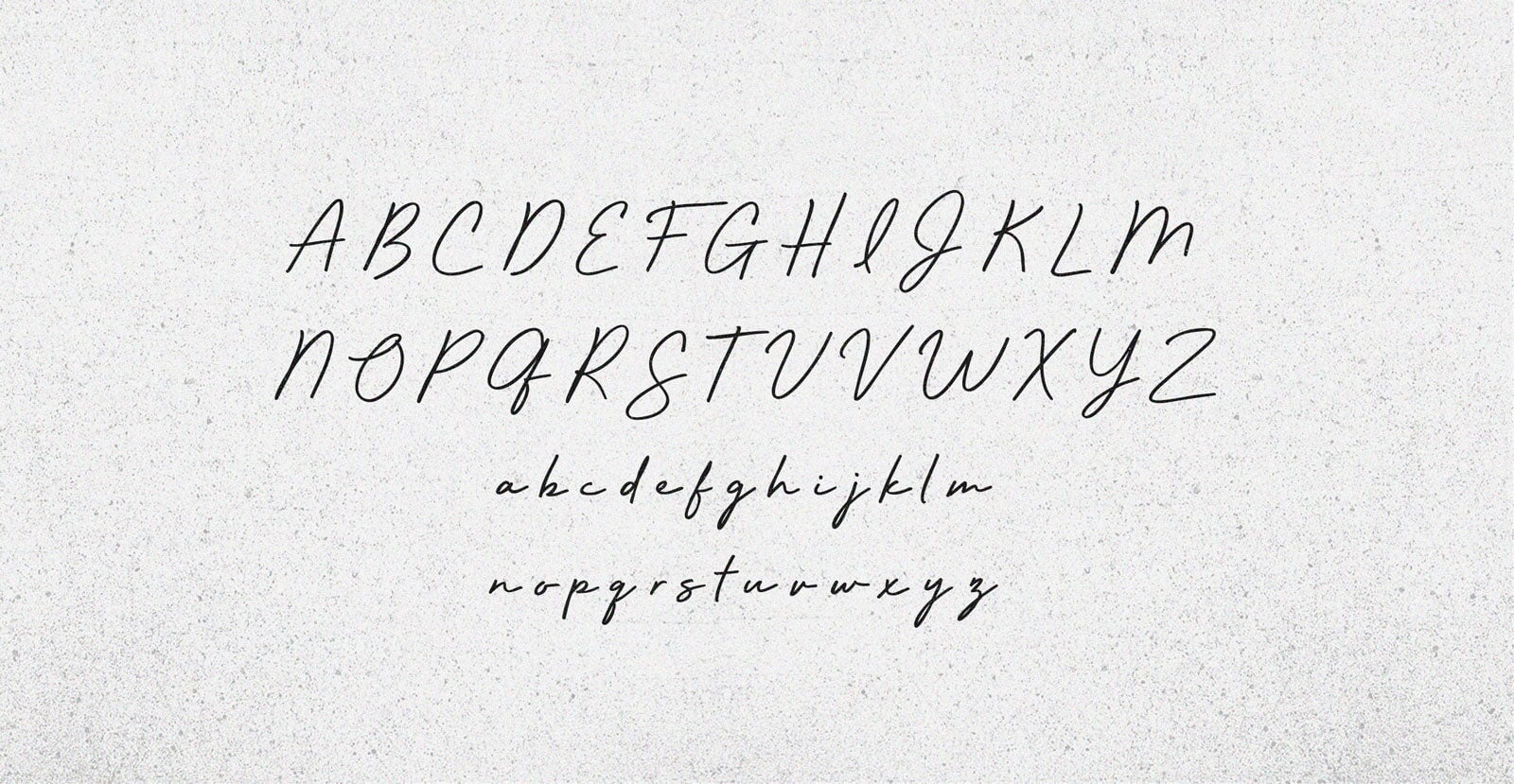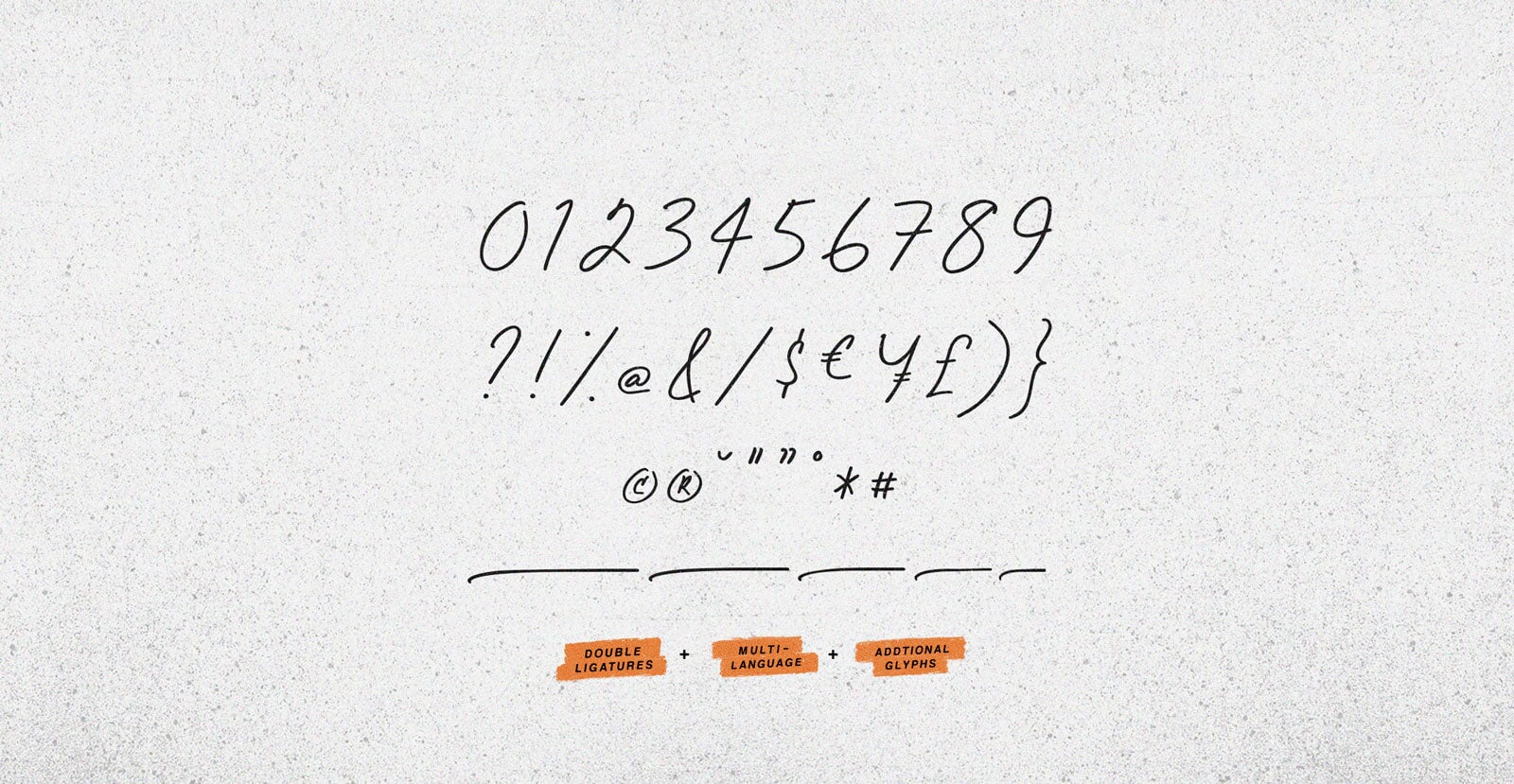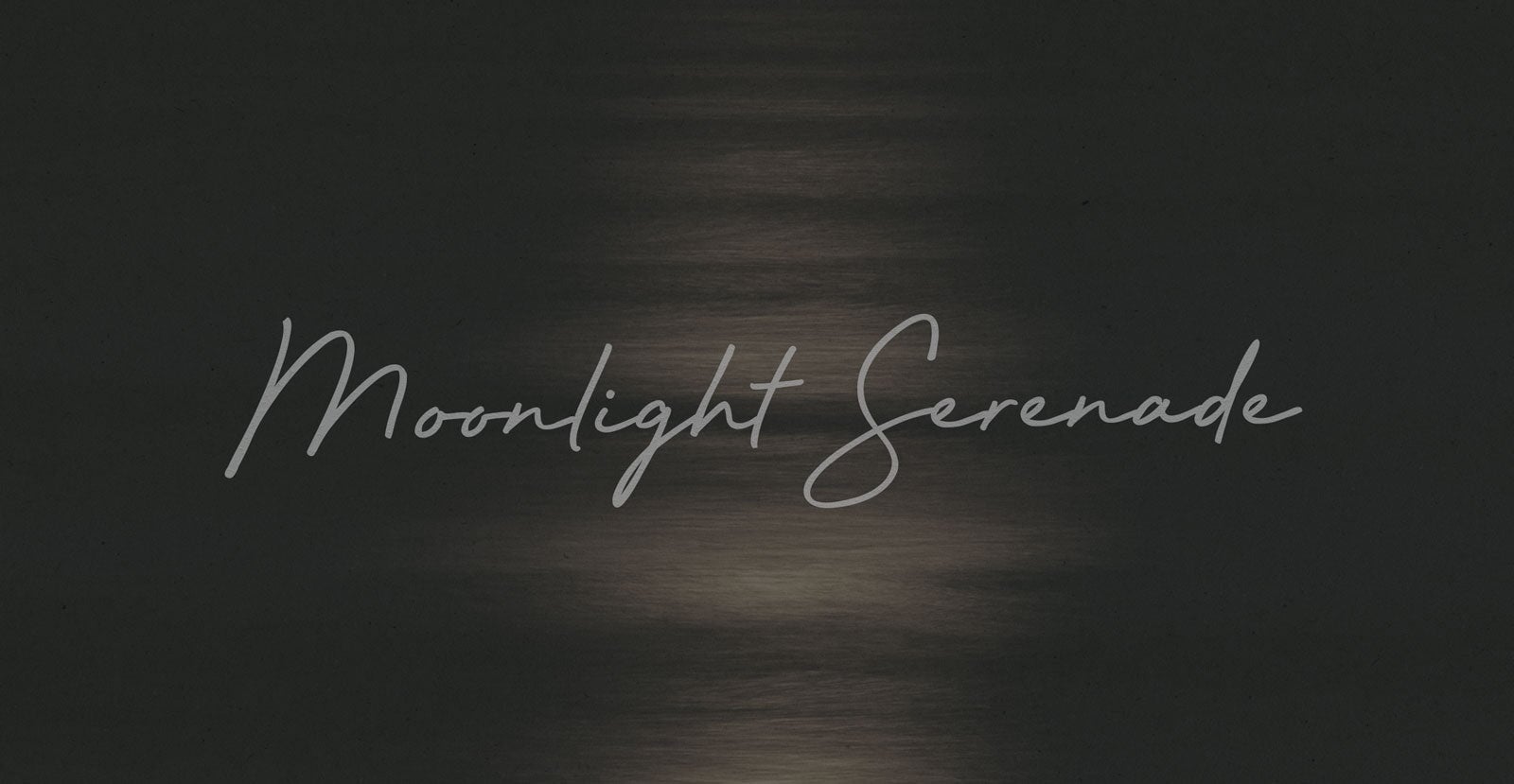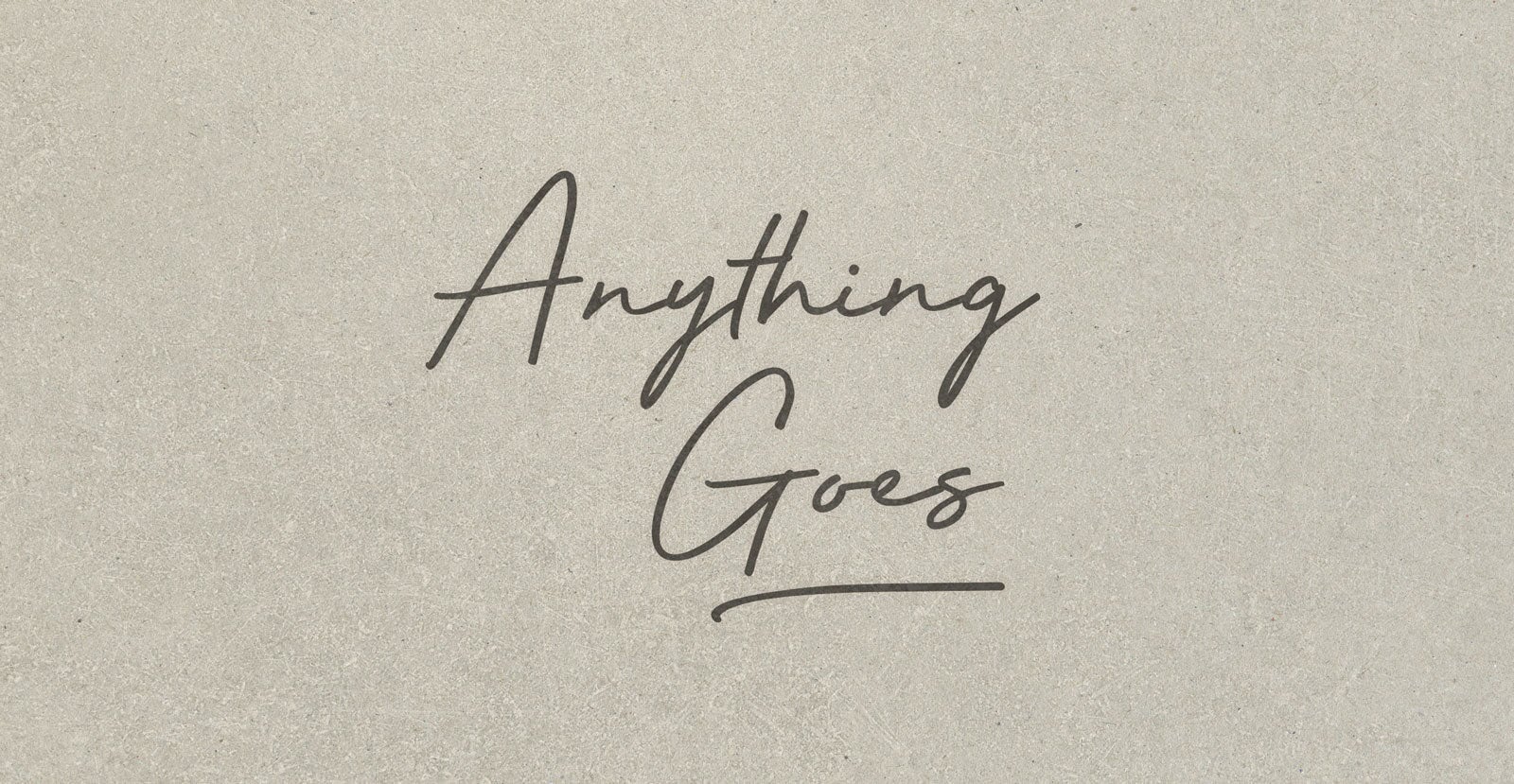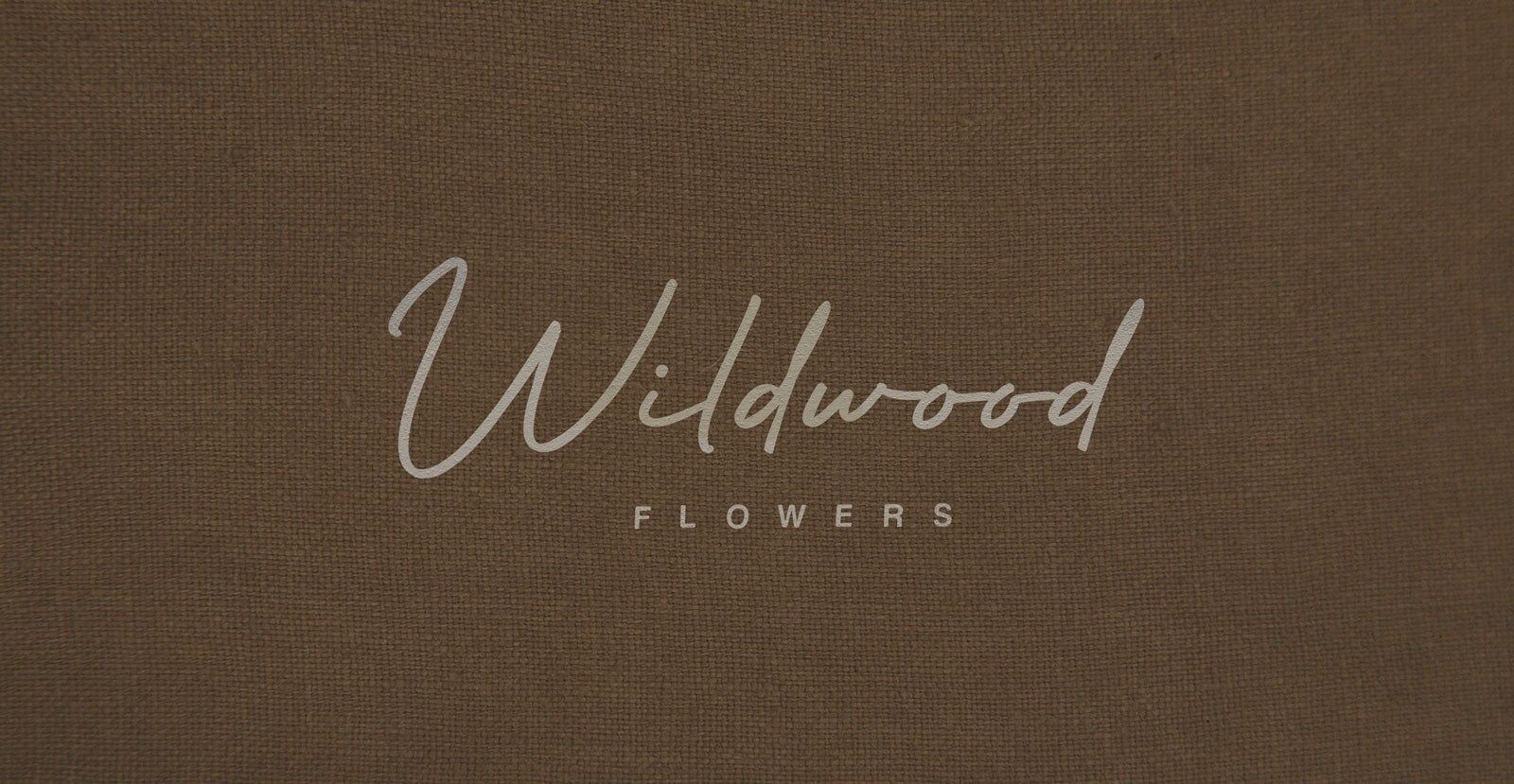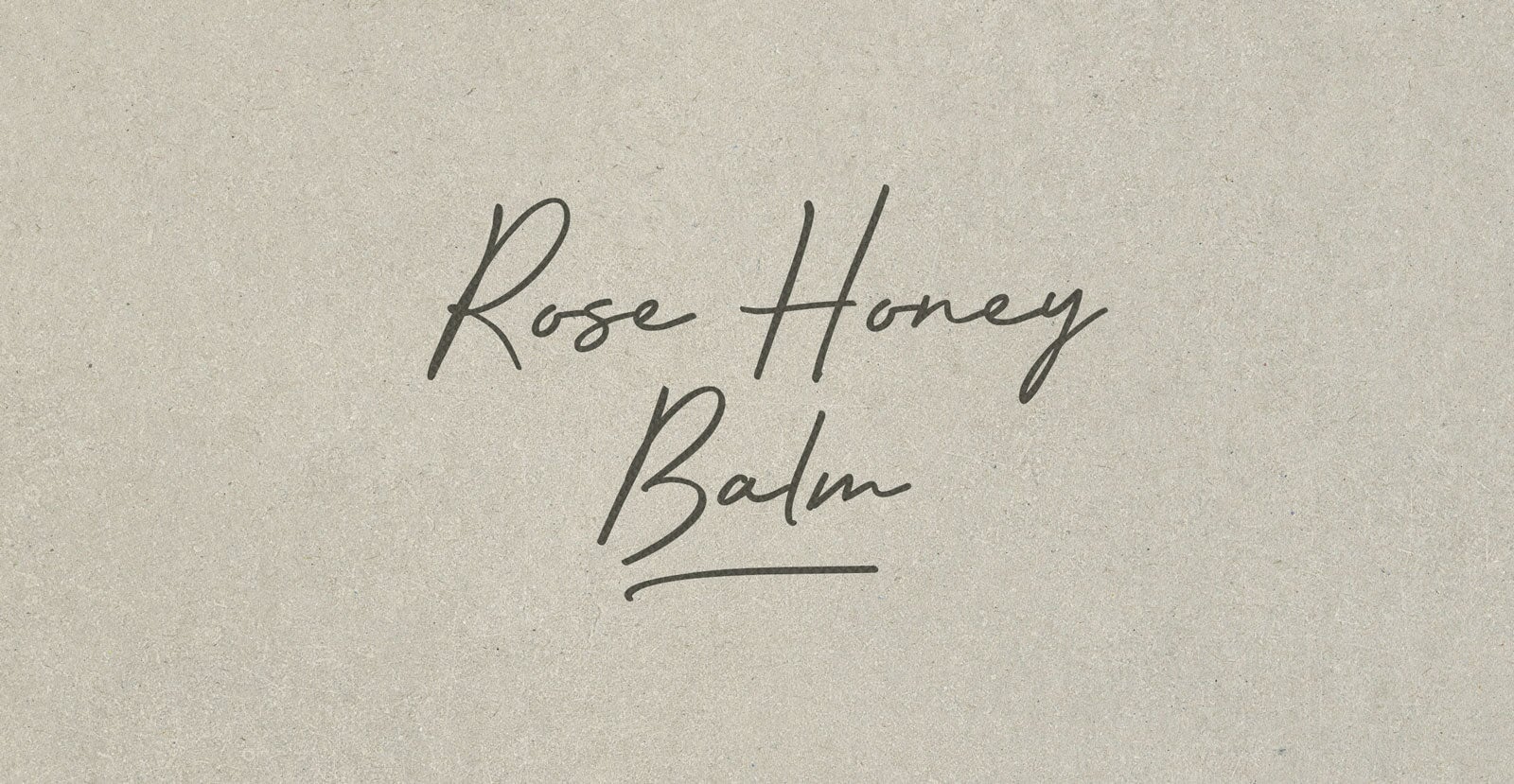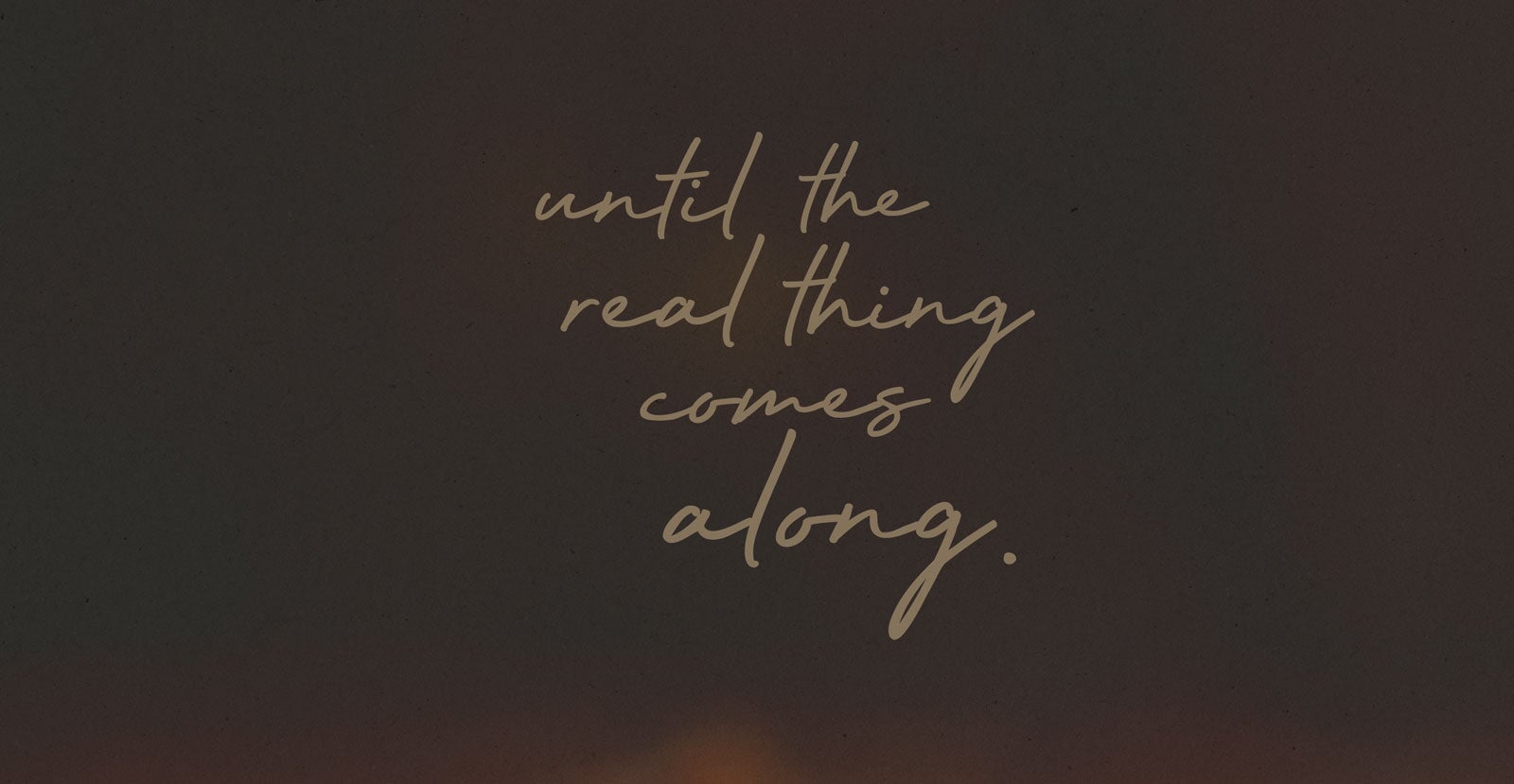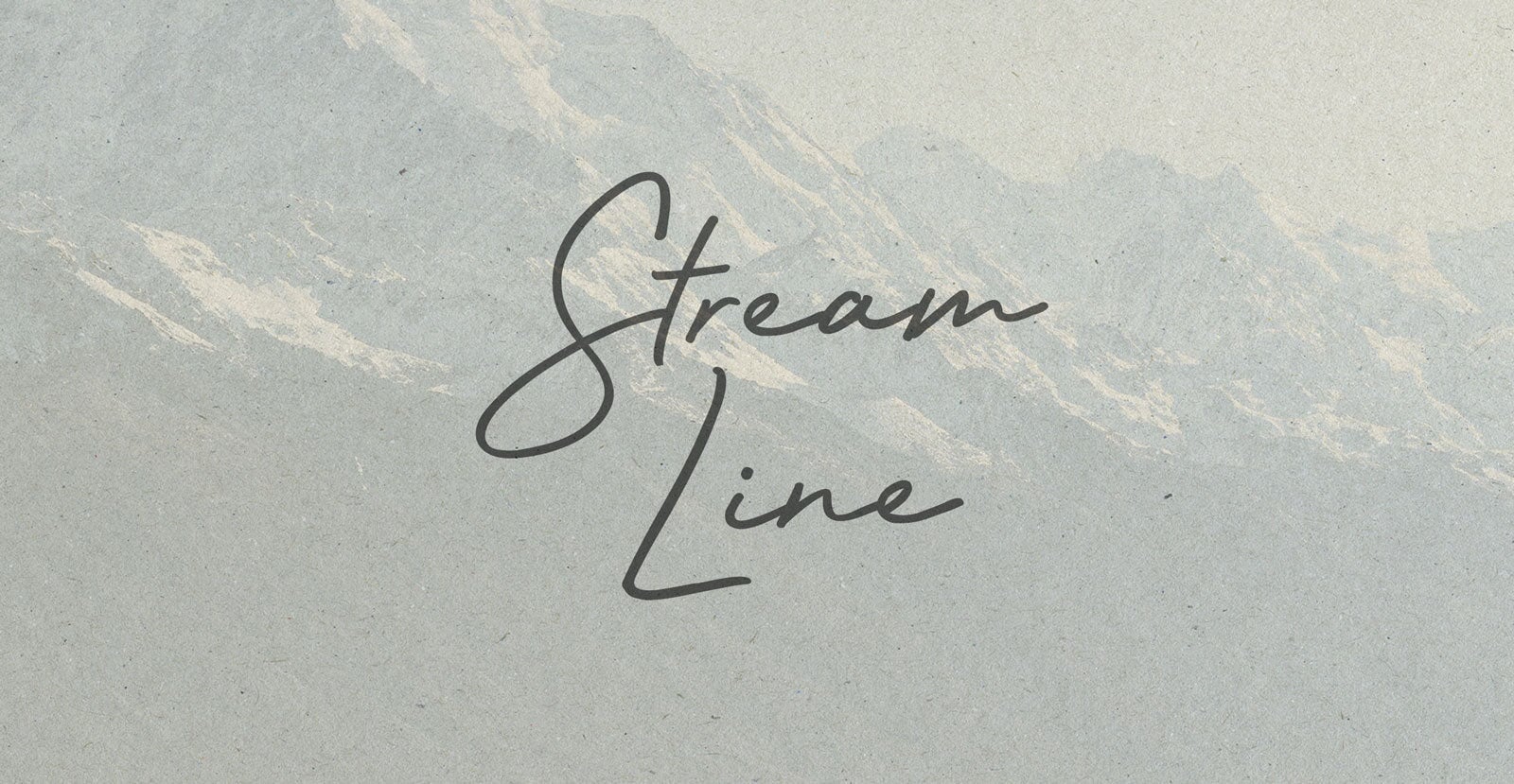
Stream Line
Handwritten Pen Script Font
Stream Line moves with quiet precision, effortlessly composed. It cuts through the excess, leaving only what matters. A flow that’s focused and built for clarity.